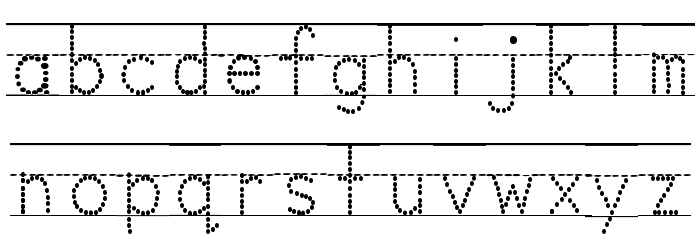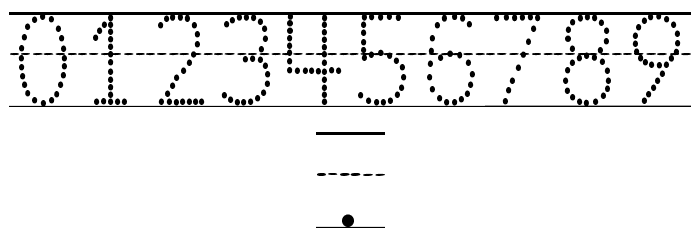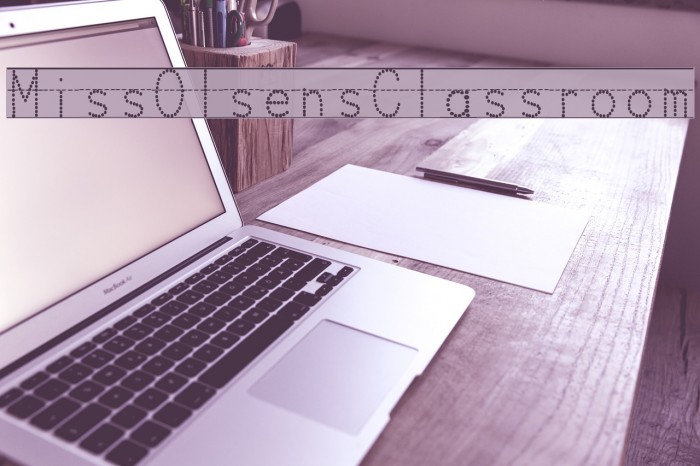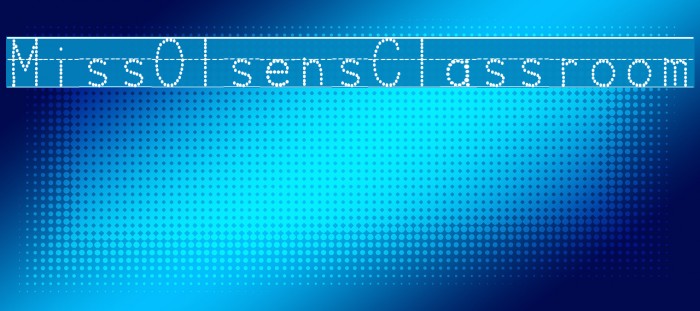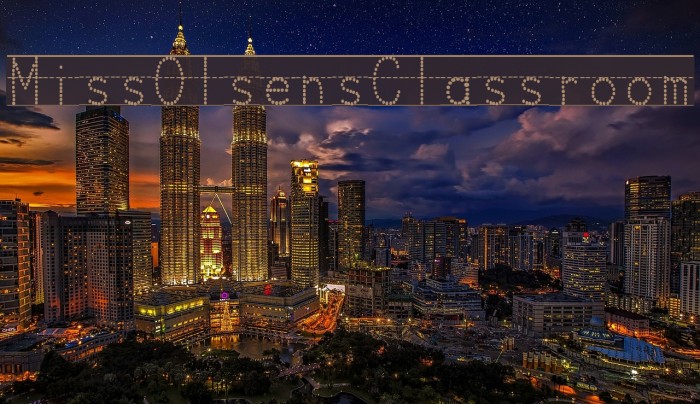
Miss Olsen's Classroom Font
This font is designed with a playful and educational style, featuring characters composed of evenly spaced dots. It mimics the look of handwriting practice sheets often used in classrooms, making it ideal for educational purposes. The uppercase and lowercase letters, as well as numbers, are clearly defined with a consistent dot pattern that aids in learning letter formation. The font includes basic punctuation and special characters, maintaining the dotted theme throughout. Its simplicity and clarity make it suitable for young learners and educational materials.
A dotted, educational font ideal for handwriting practice.
- Font: Miss Olsen's Classroom
- Proposed Projects: Perfect for educational materials, children's books, and handwriting practice sheets.
- Overall Style: Educational, Playful
- Use Case: Educational materials, Handwriting practice